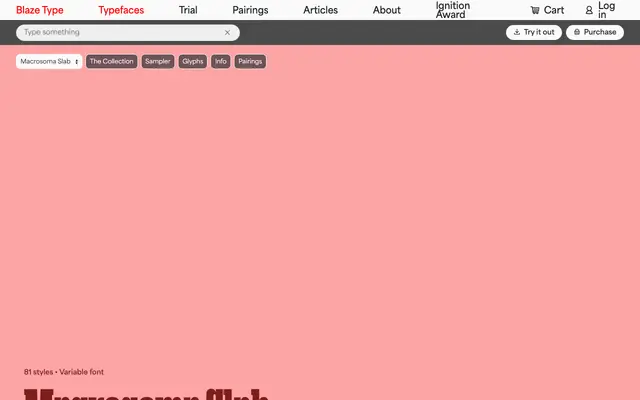
Macrosoma Slab
A slab serif family of 81 styles spanning nine width grades from Compressed to Wide, each available in nine weights from Hairline to Extrabold.
The family is built around a two-axis variable font covering width and weight, producing a grid of 81 static styles across nine families. Width variants run from Compressed through to Wide, making it suited to applications from tight headline stacking to spacious display setting. The nine weights, from Hairline to Extrabold, give each width grade enough range for both editorial and branding work.
The typeface is explicitly named a slab, with squared serifs consistent across nine width families. The breadth of the width axis from Compressed to Wide, combined with slab serif construction, places it squarely in the slab serif category.